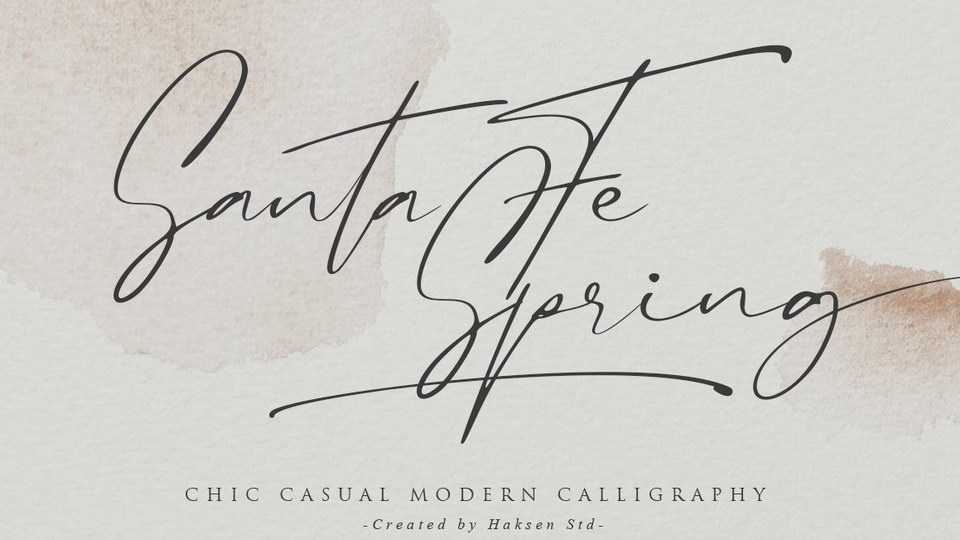
Santa Fe Spring Script Font › Fontesk
Download Santa Fe Spring font, a chic casual modern calligraphy script typeface. Santa Fe Spring is perfect for branding, signature, wedding invitation, promotion, product packaging, and other needs.
Designer: Haksen Studio